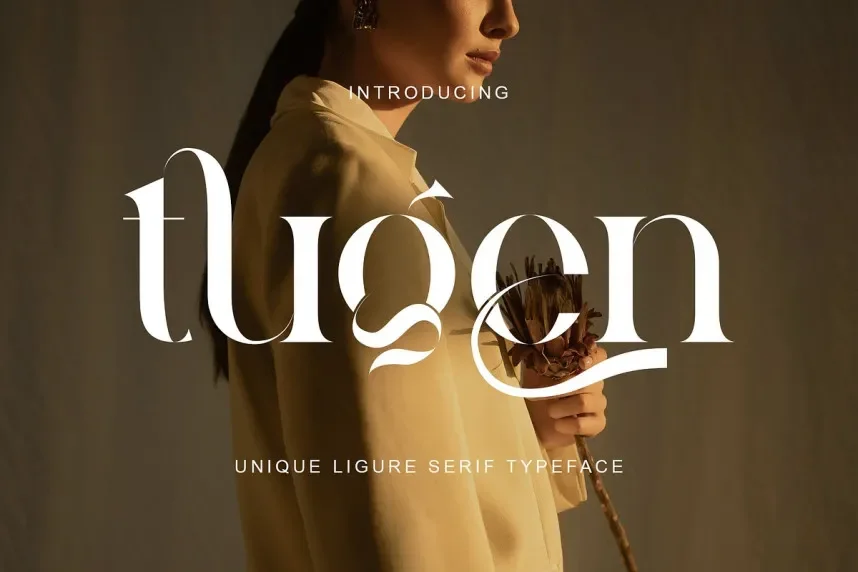
Tugen Font is a versatile sans-serif typeface with clean, sharp lines and a contemporary design. Its balanced proportions and readability make it ideal for a wide range of digital and print projects, including branding, websites, and signage.